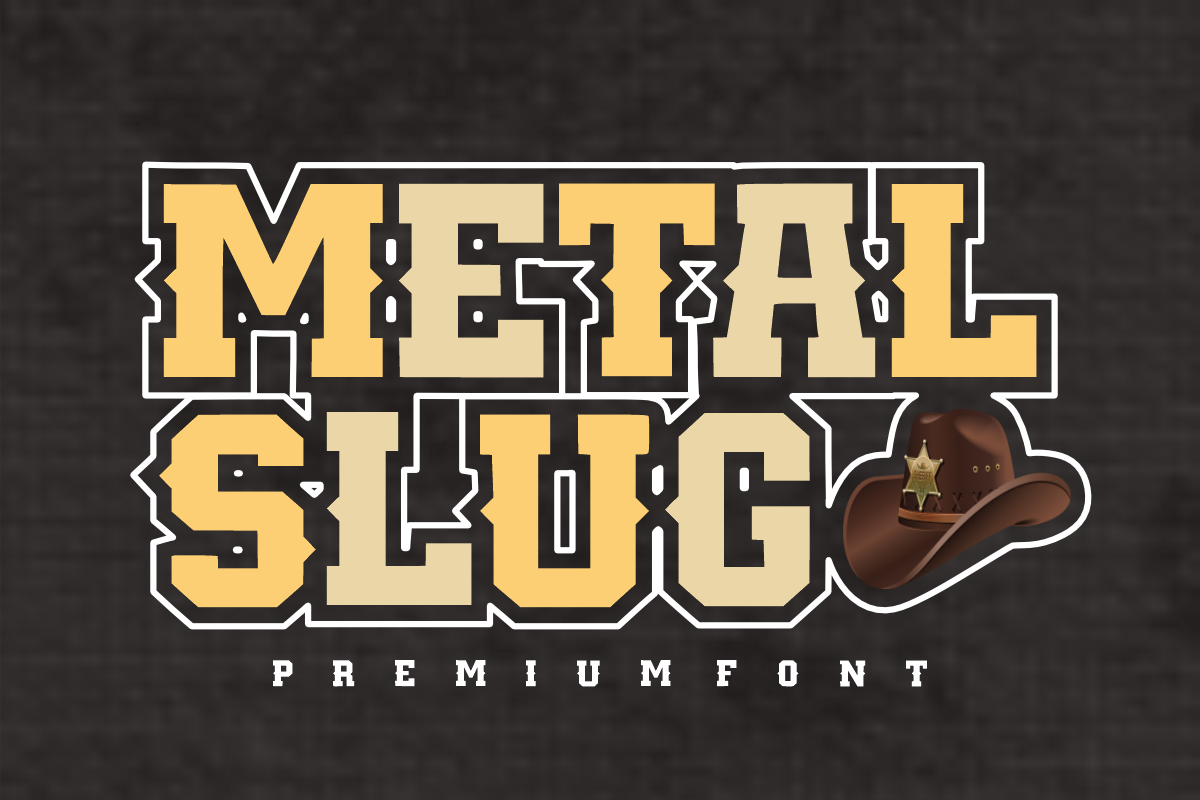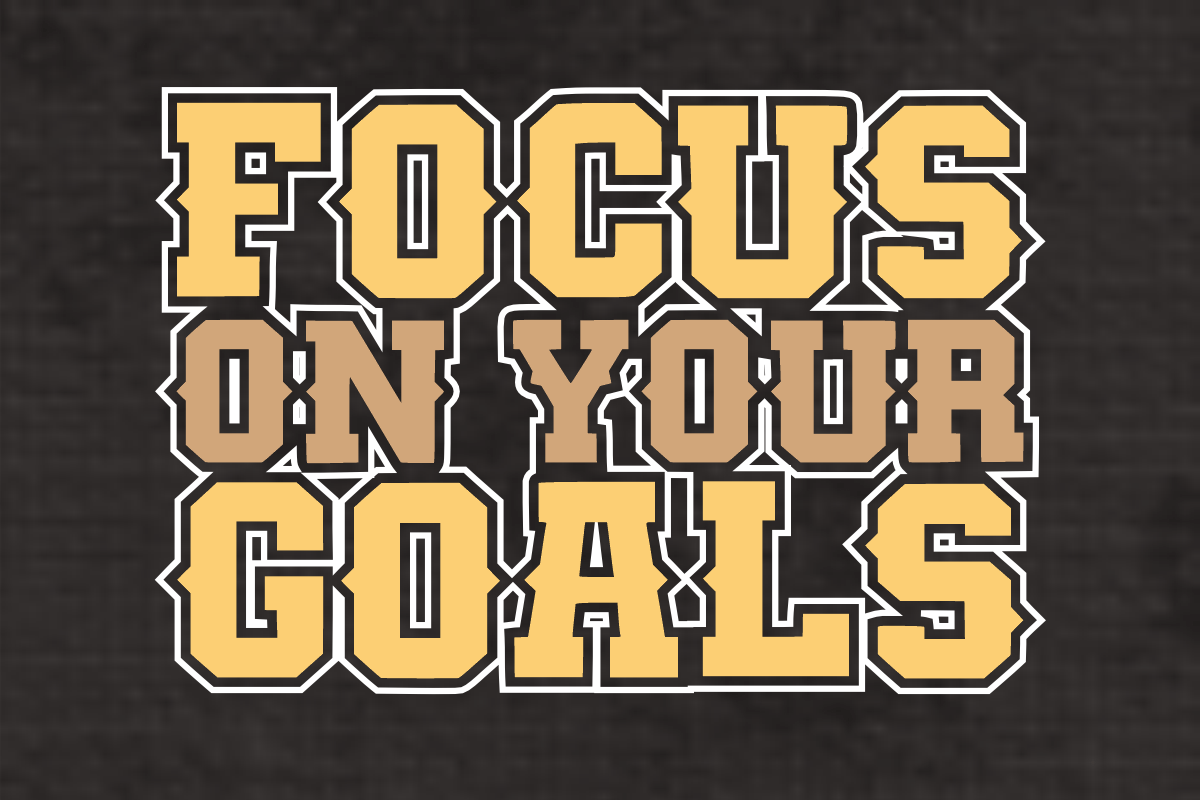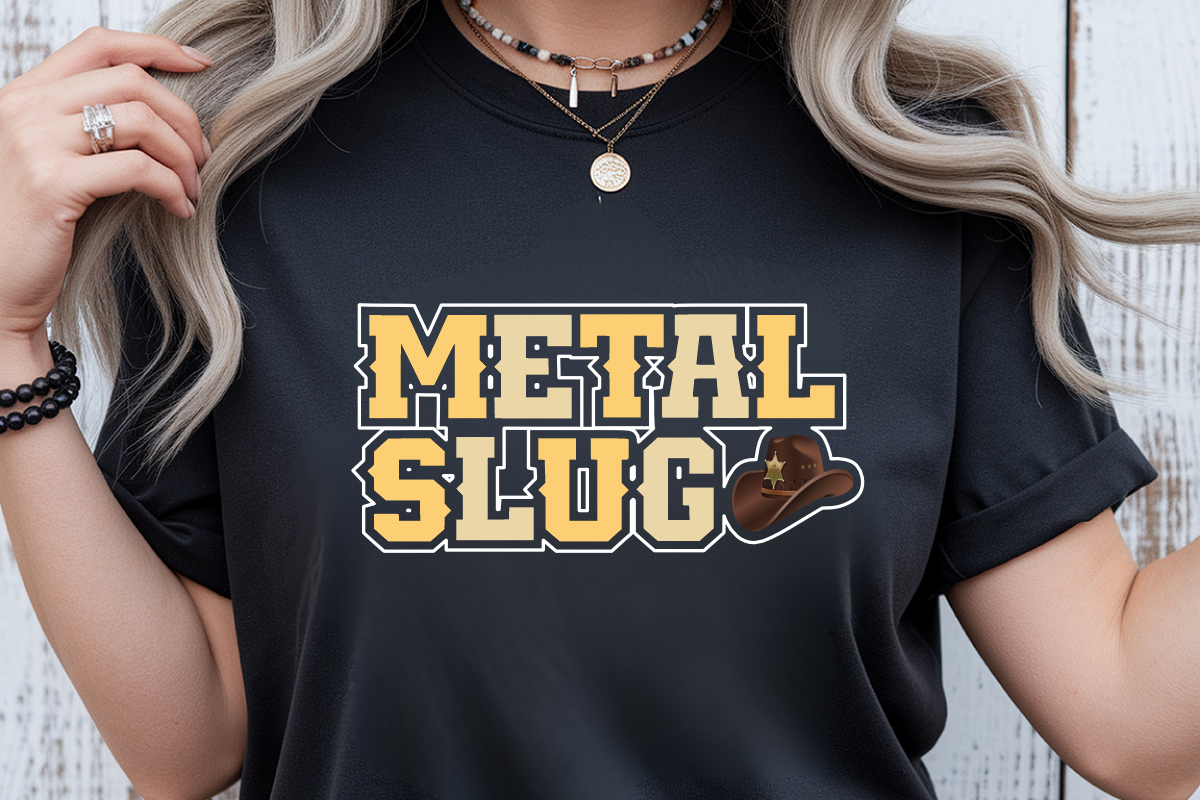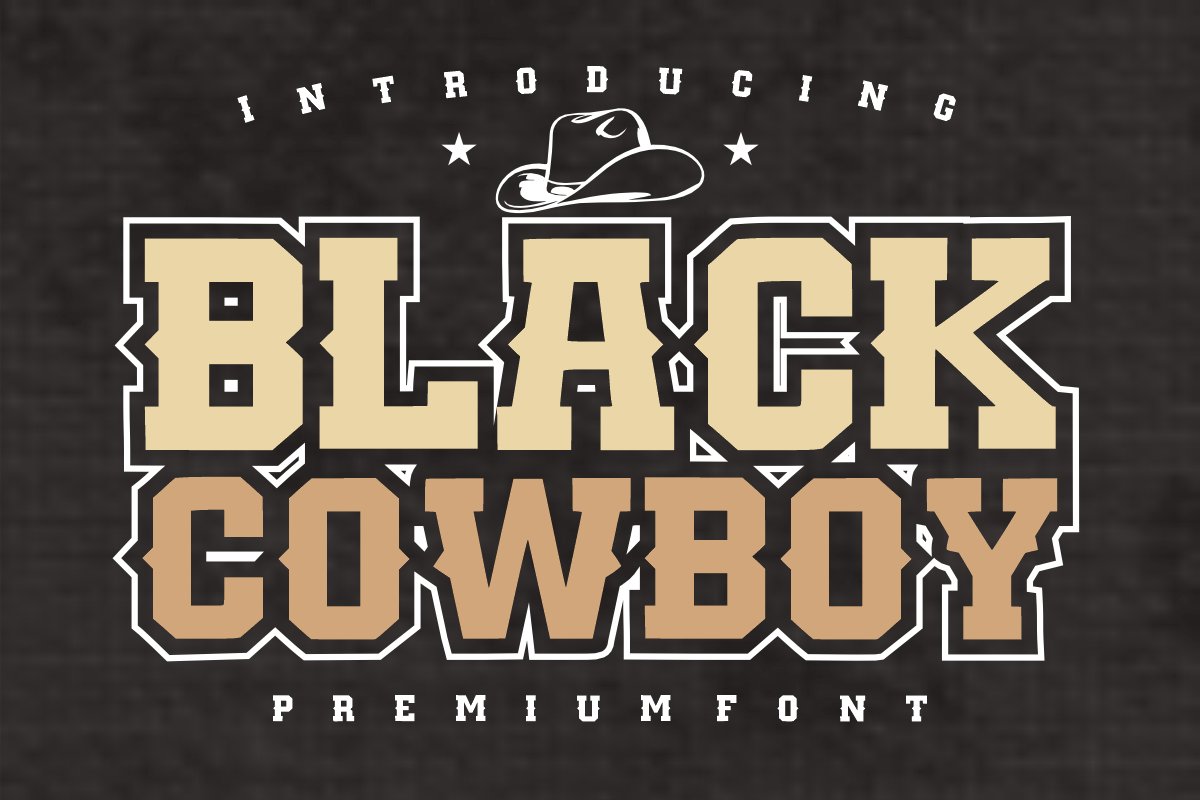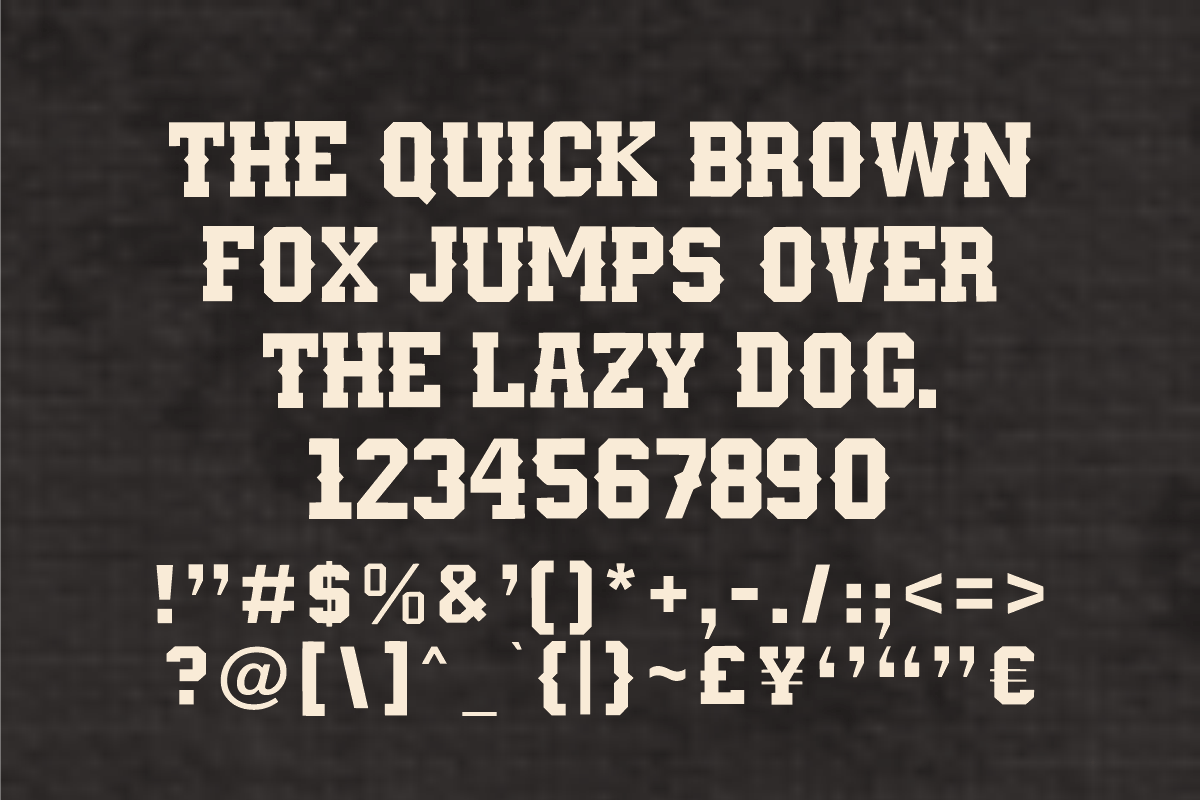
Black Cowboy - Bold Western Font
Black Cowboy - Bold Western Display Font
Giddy up and bring the rugged spirit of the wild west to your design projects with Black Cowboy! This heavy, slab-serif display font captures the timeless saloon and rodeo aesthetic with its bold character blocks and classic western mid-letter spurs. It is engineered to give your headlines an instant, masculine, and vintage premium touch.
Perfect for retro branding, rugged apparel lines, and bold packaging design, Black Cowboy balances classic vintage charm with sharp, clean vector precision. It is highly legible, visually striking, and fully optimized for professional digital and print layouts.
All-Caps Character Set (Bold, notched uppercase letters with a western feel)
Numbers & Basic Punctuation (Essential, simple symbols included)
Vintage Logos & Western Brand Identities 🤠
Rugged Apparel Design & Biker/Cowboy Merchandise 👕
Rodeo Posters, Event Flyers, & Country Music Graphics 🎸
Whiskey, Craft Beer, & Tobacco Product Packaging 🍾
High-Impact Social Media Headers & Editorial Titles 📱